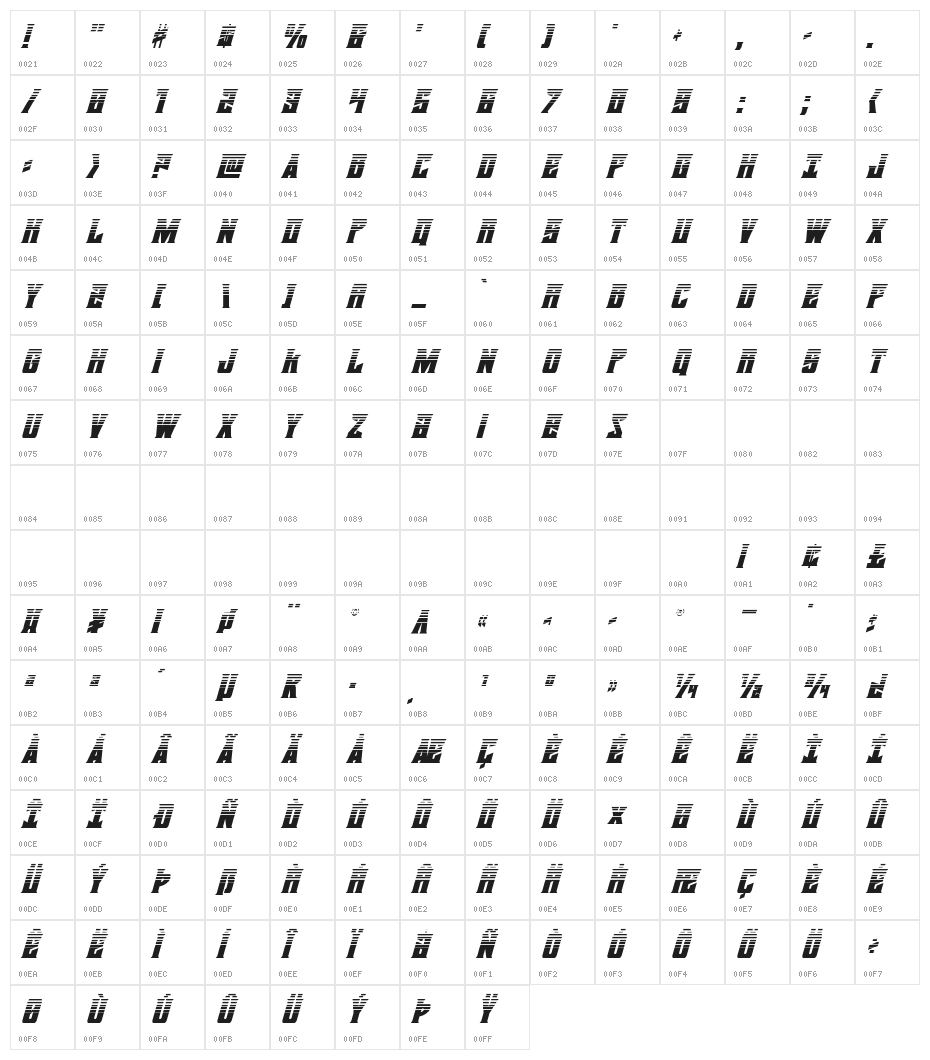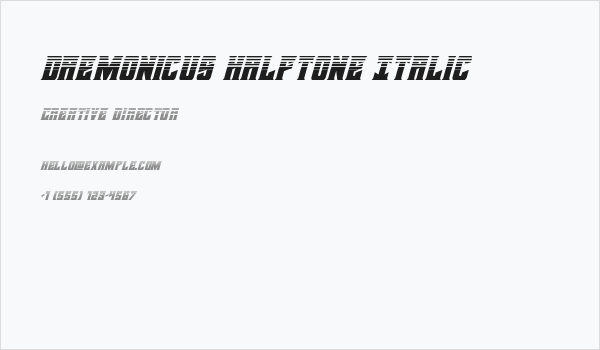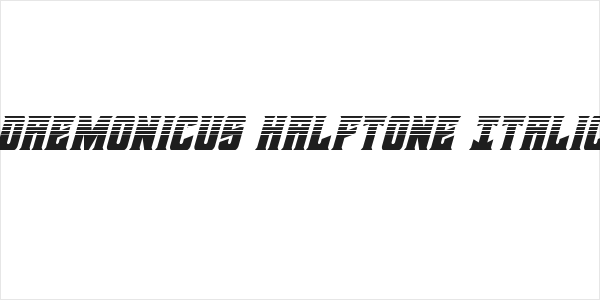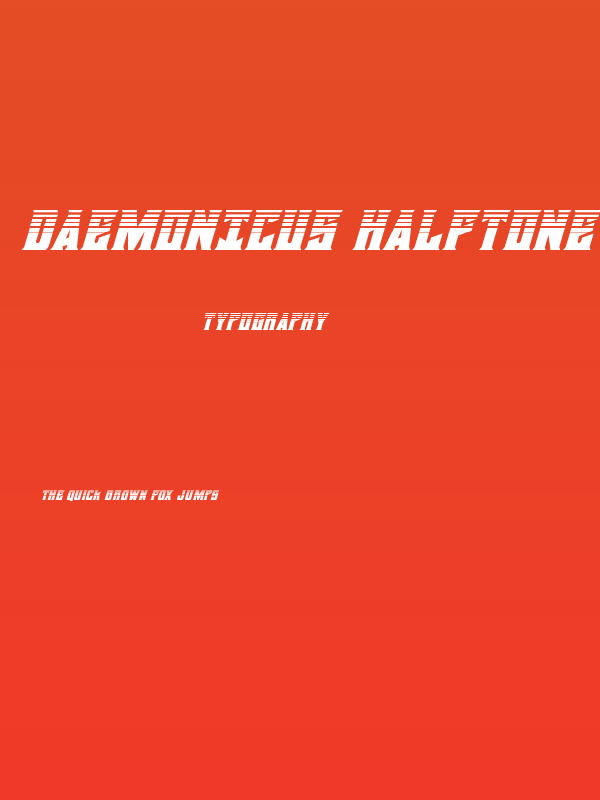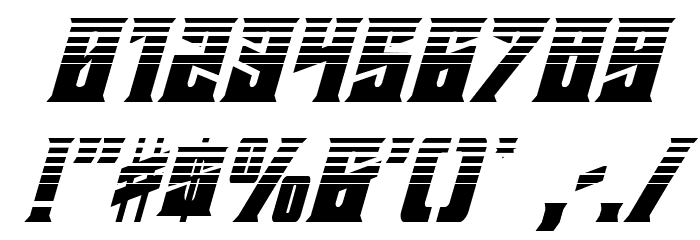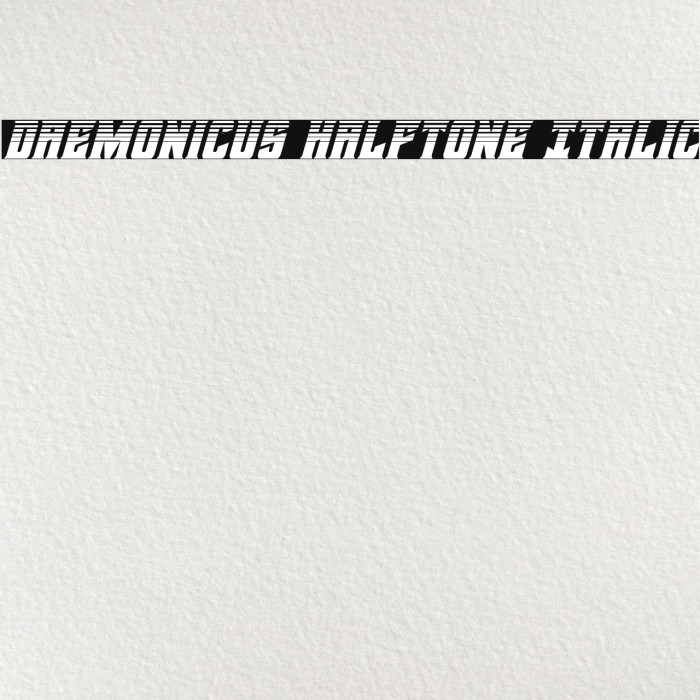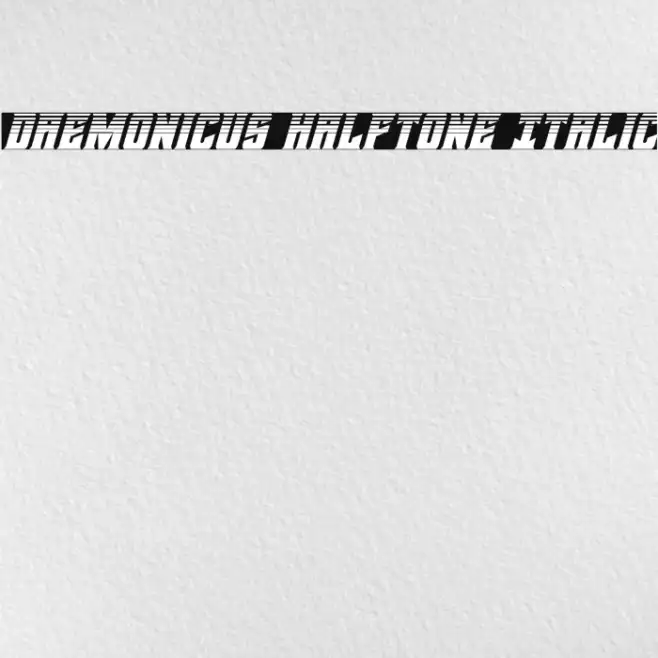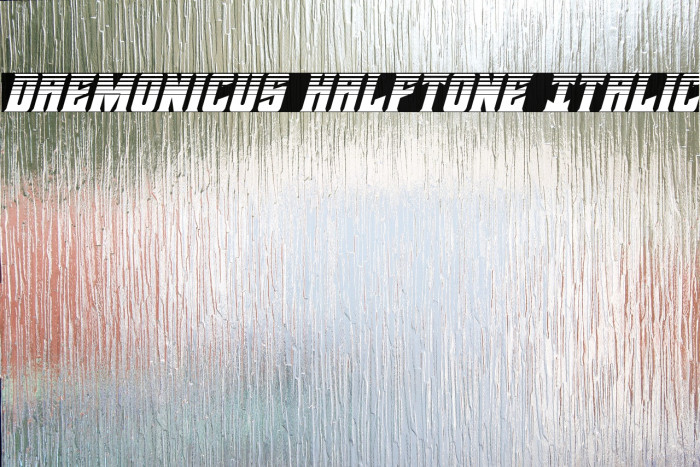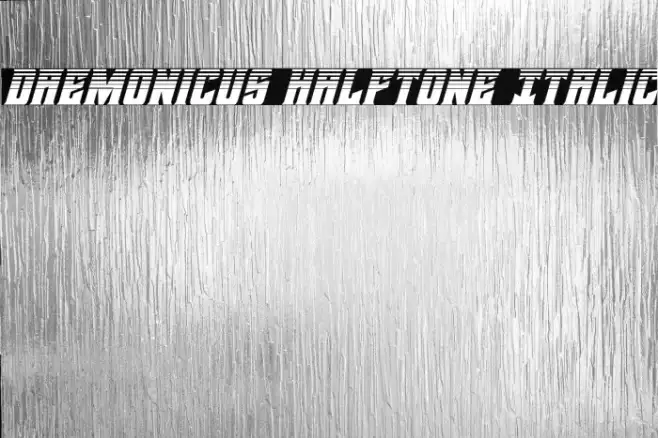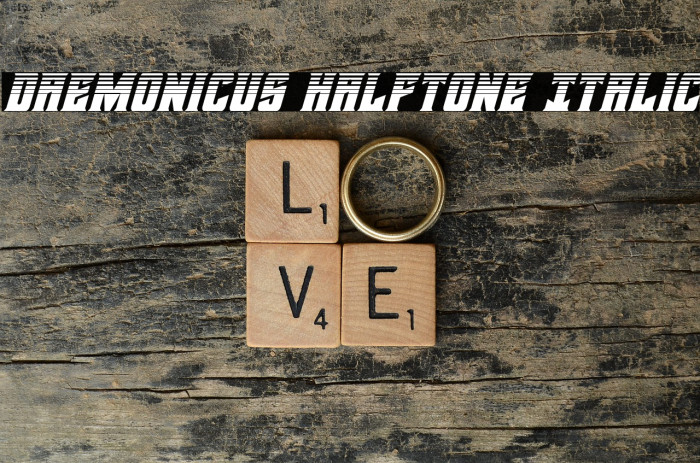
Daemonicus Halftone Italic Font
Daemonicus Halftone Italic Description
This font features a bold and dynamic design with a strong italic slant, giving it a sense of motion and energy. The characters are constructed with a halftone pattern, creating a unique visual texture that adds depth and interest. The uppercase and lowercase letters maintain a consistent style, with sharp angles and a futuristic appearance. The numerals and special characters follow the same design principles, ensuring a cohesive look across all glyphs. This font is ideal for projects that require a bold statement and a modern aesthetic.
| Proposed Projects | Ideal for posters, album covers, video game graphics, and branding that requires a modern and energetic look. |